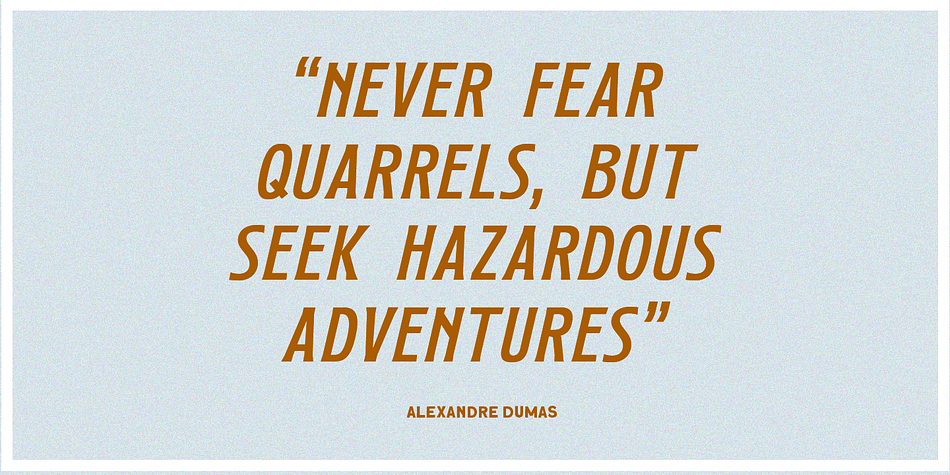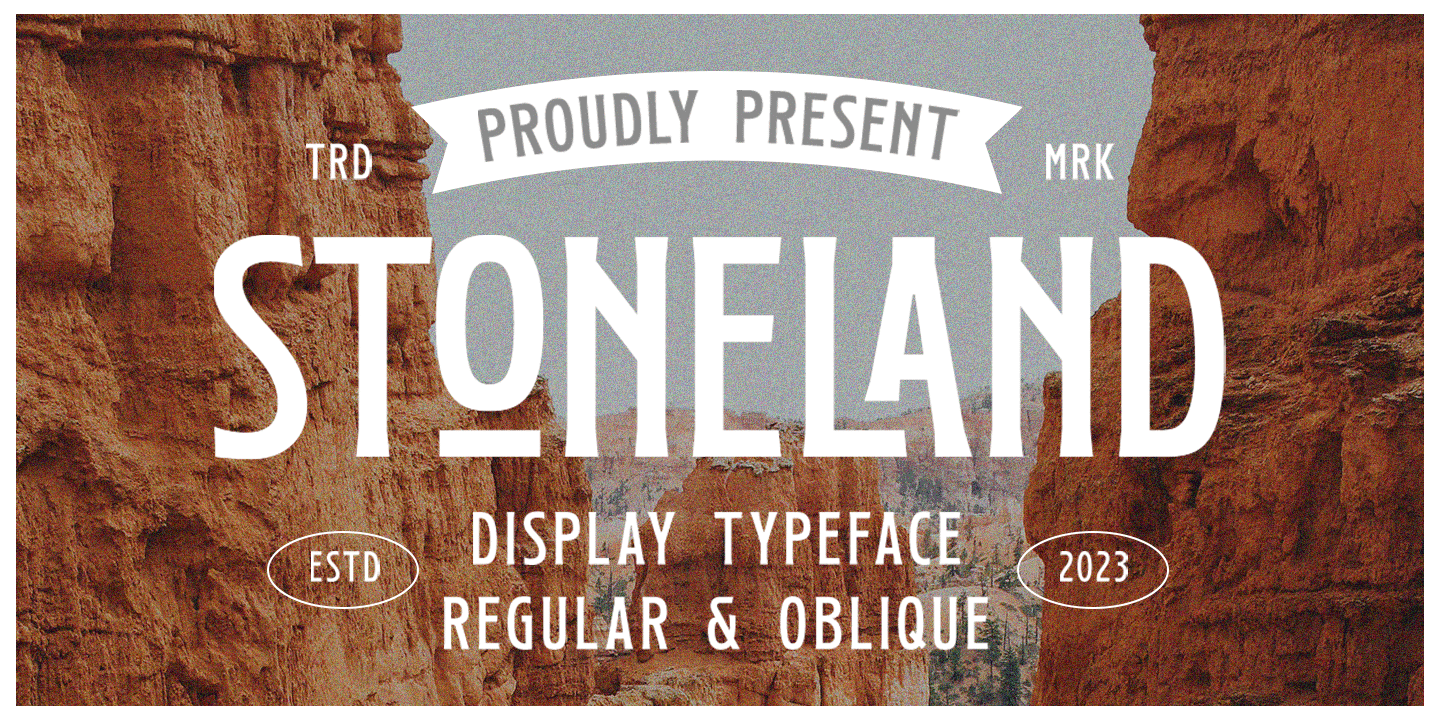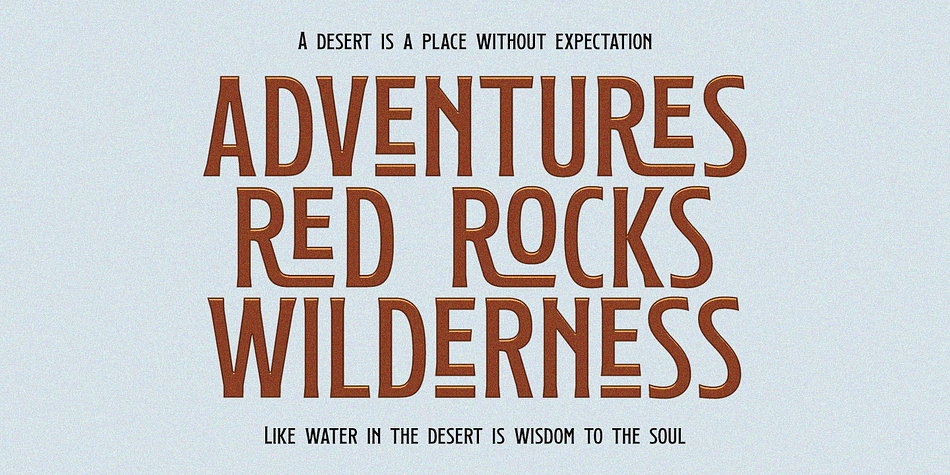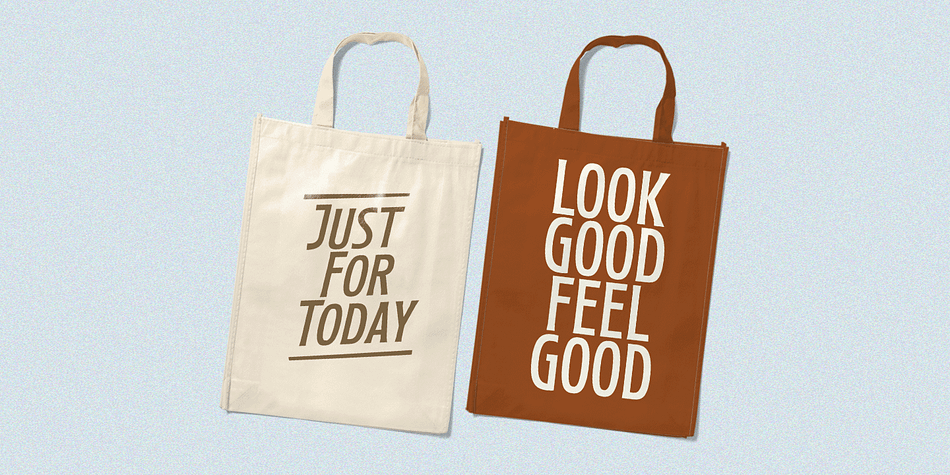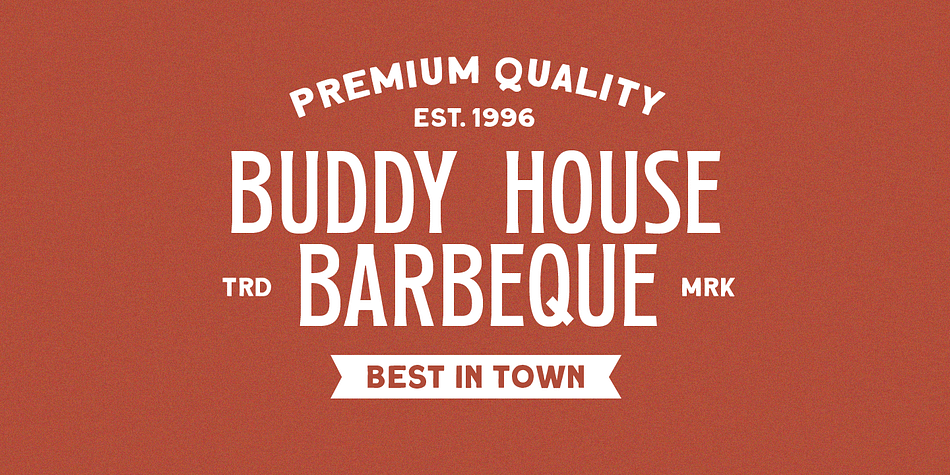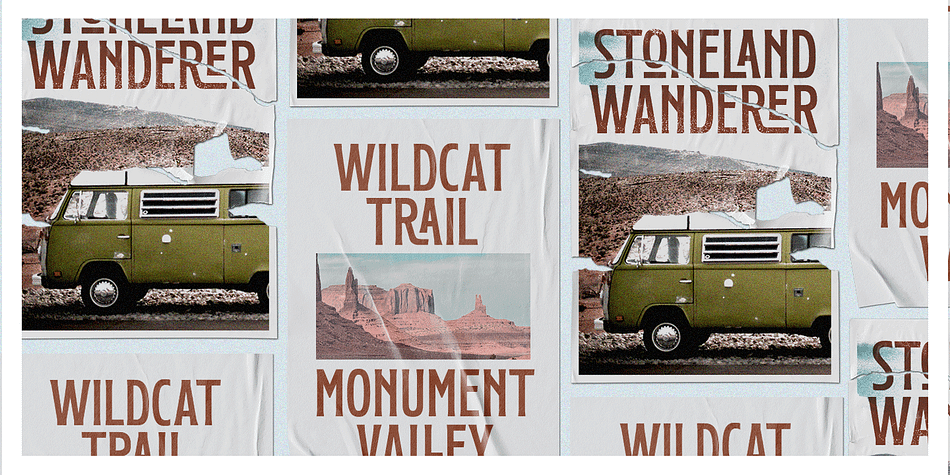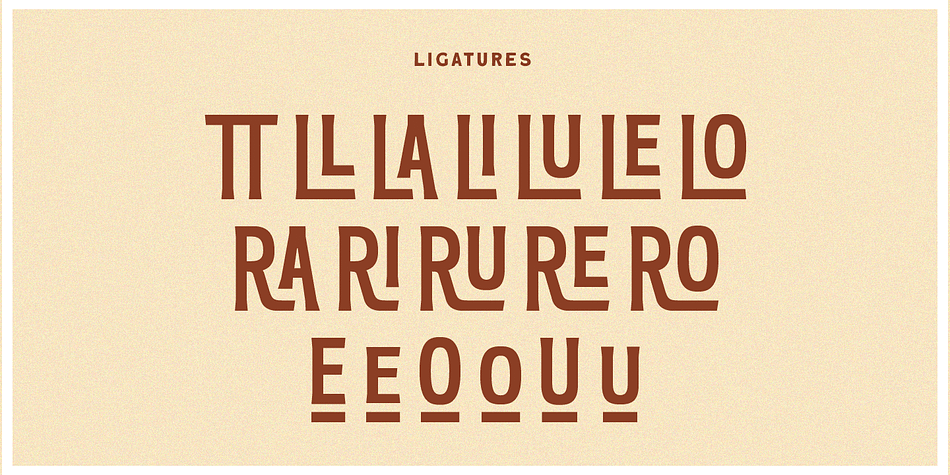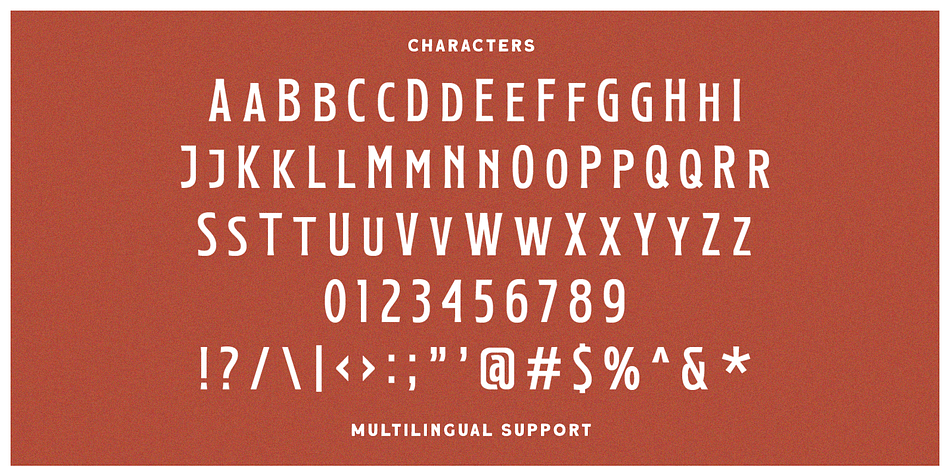
Stoneland
Designed by Hendry Juanda, Stoneland is a display sans font family. This typeface has two styles and was published by Letterhend Studio.
Get ready to stand out with Stoneland, a stunning display font with many ligatures that will elevate your designs to the next level. Stoneland is perfect for those looking to make an impact with their designs, thanks to its strong and bold style. The font is perfect for a variety of design projects, including logos, branding, packaging,  and the other various formal forms such as invitations, labels, logos, magazines, books, greeting / wedding cards, packaging, fashion, make up, stationery, novels, labels or any type of advertising purpose.
- Alternates & ligatures